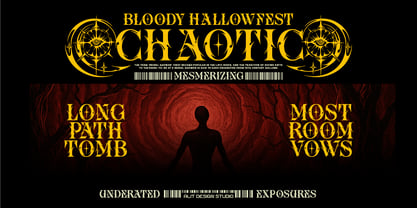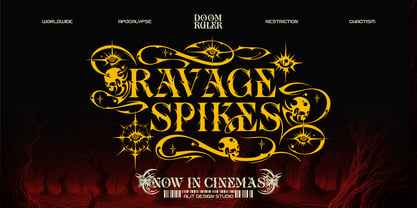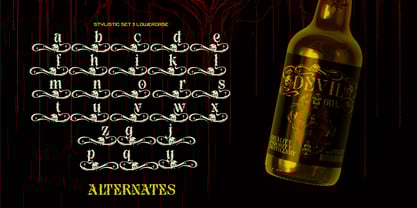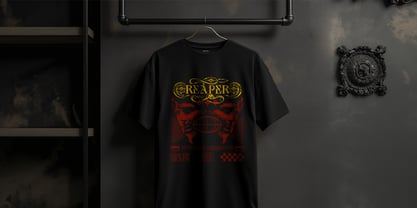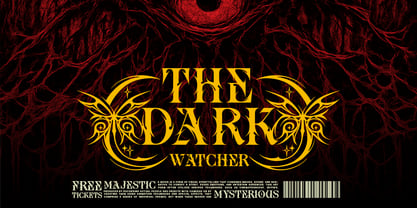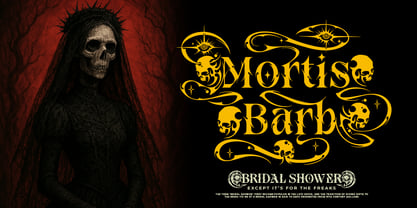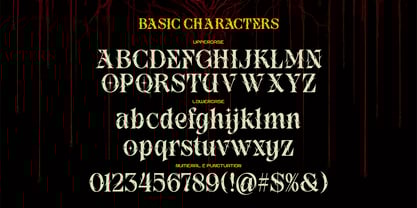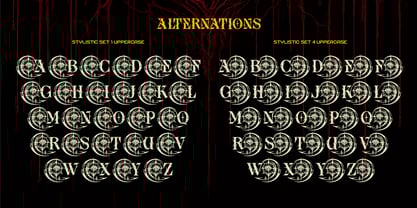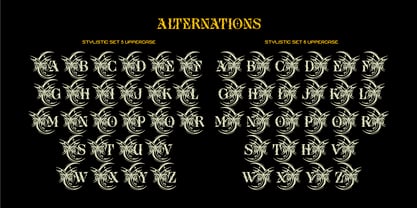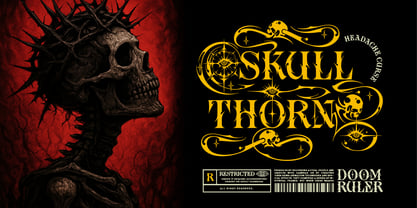
Ocular Doom
by Alit Design
The Ocular Doom Font Family was designed by Alit Suarnegara and published by Alit Design. Ocular Doom contains 1 styles.
Introducing Ocular Doom – A Typeface That Stares Back Dive into the abyss with Ocular Doom, a chilling new display typeface straight from the creative crypts of Alit Design Studio. This font is not merely seen; it is felt. It channels the spirit of gothic horror, blackletter traditions, and occult mysticism into every sharp, angular character. Ocular Doom is a “feature-rich” beast, armed with over 950 glyphs. Its true, terrifying power is unlocked through its vast collection of alternates. Discover breathtaking stylistic sets that encase letters in mystical, all-seeing eye sigils (Stylistic Sets 1 & 4) or extend them with elegant, eye-adorned swashes (Stylistic Sets 2 & 3). But the horror doesn’t stop there. Ocular Doom is infested with decorative ligatures and terminal swashes that morph into haunting skulls, watchful eyes, and intricate flourishes. This allows you to craft truly custom, illustrative typography that looks like a hand-drawn logo. This typeface is the ideal choice for conjuring a dark and powerful atmosphere. It’s perfect for horror movie titles, doom metal album covers, gothic apparel branding, mystical book covers, Halloween event posters, or any design project that commands attention and whispers of things unseen. With its extensive multilingual support and multiple stylistic sets, Ocular Doom gives you the power to create truly unique and terrifying designs. Dare to look into the void? Ocular Doom is a feature-packed gothic display font that includes: Base Characters: A full set of uppercase and lowercase letters with a sharp, gothic style. Numerals & Punctuation: A complete set of numbers and all standard punctuation. Multilingual Support: Extensive language support for Western European, Central European, and Southeastern European characters. Massive Glyphs Collection (957+ Glyphs): Stylistic Alternates (SS01 – SS04): Four complete alternate uppercase alphabets, including: Stylistic Set 1 & 4: Highly illustrative letters, each encapsulated within an ornate, eye-themed sigil or compass design. Stylistic Set 2 & 3: Elegant swash alternates featuring horizontal flourishes decorated with an eye motif. Ornate Ligatures: A wide variety of decorative ligatures to automatically connect characters with a unique, custom feel. Illustrative Swashes: A collection of terminal swashes and decorative elements featuring skulls, eyes, and occult symbols to add a bespoke, dark-art touch to your typography.